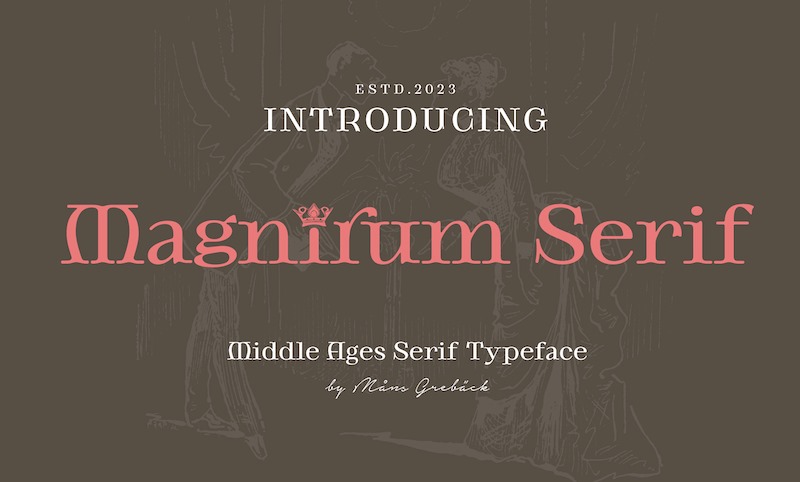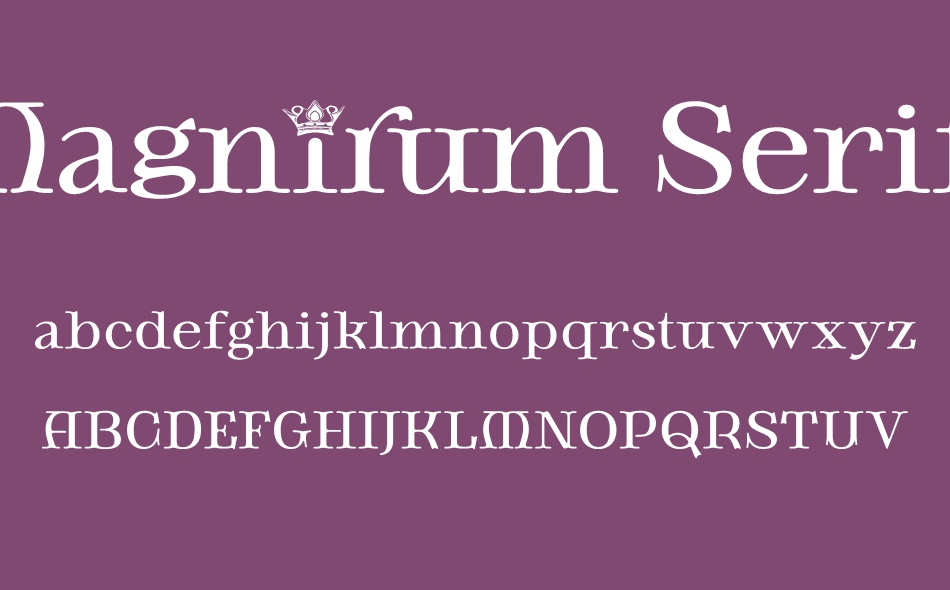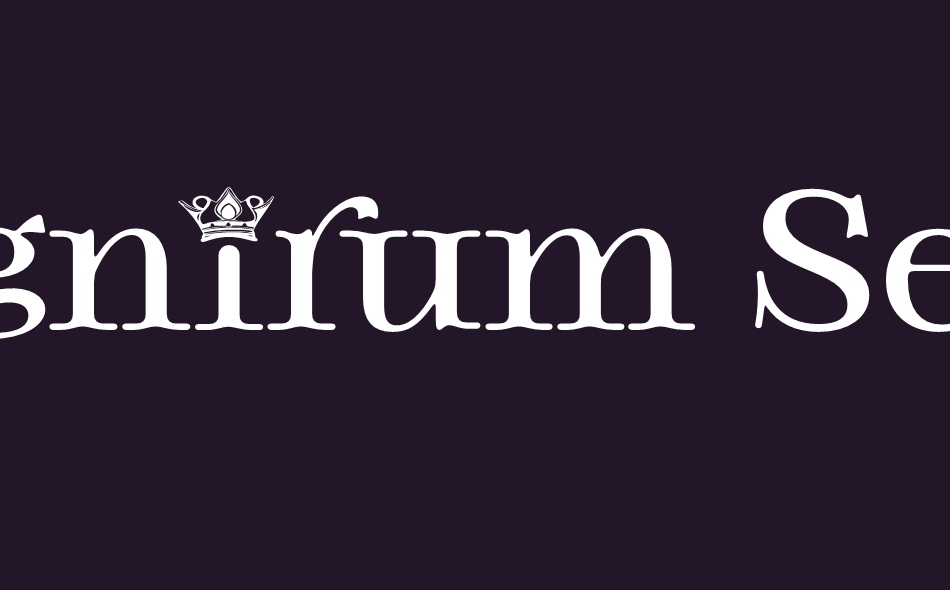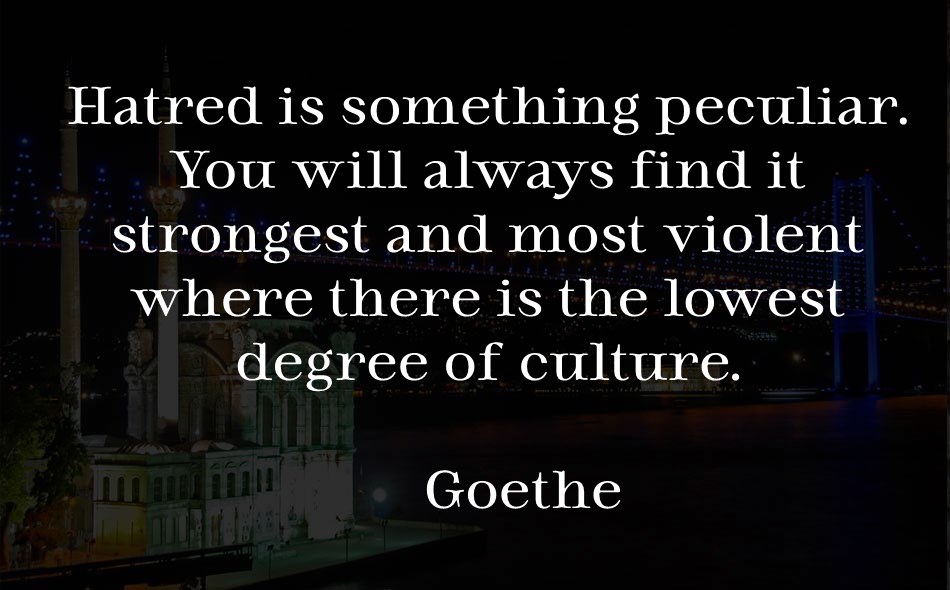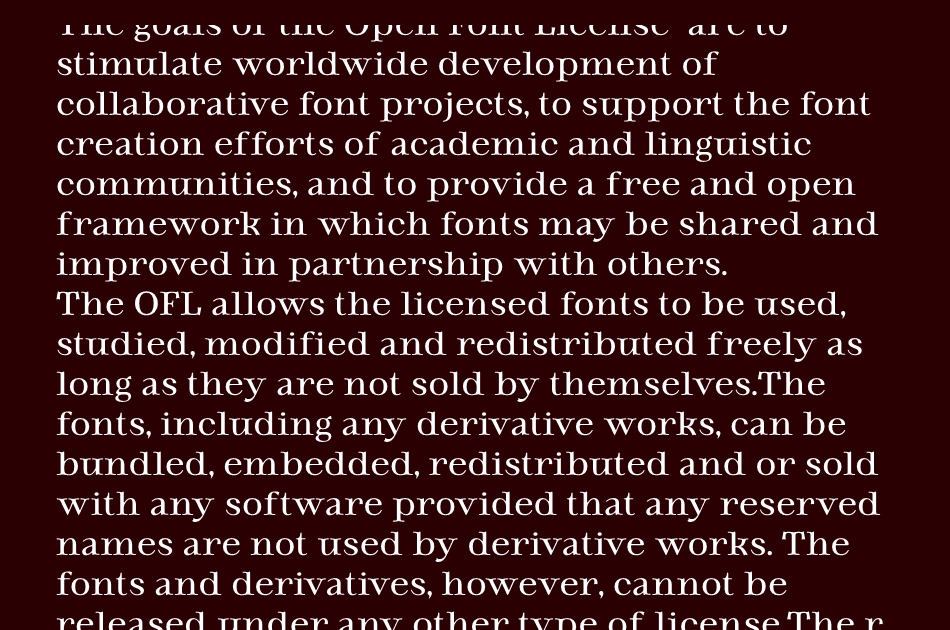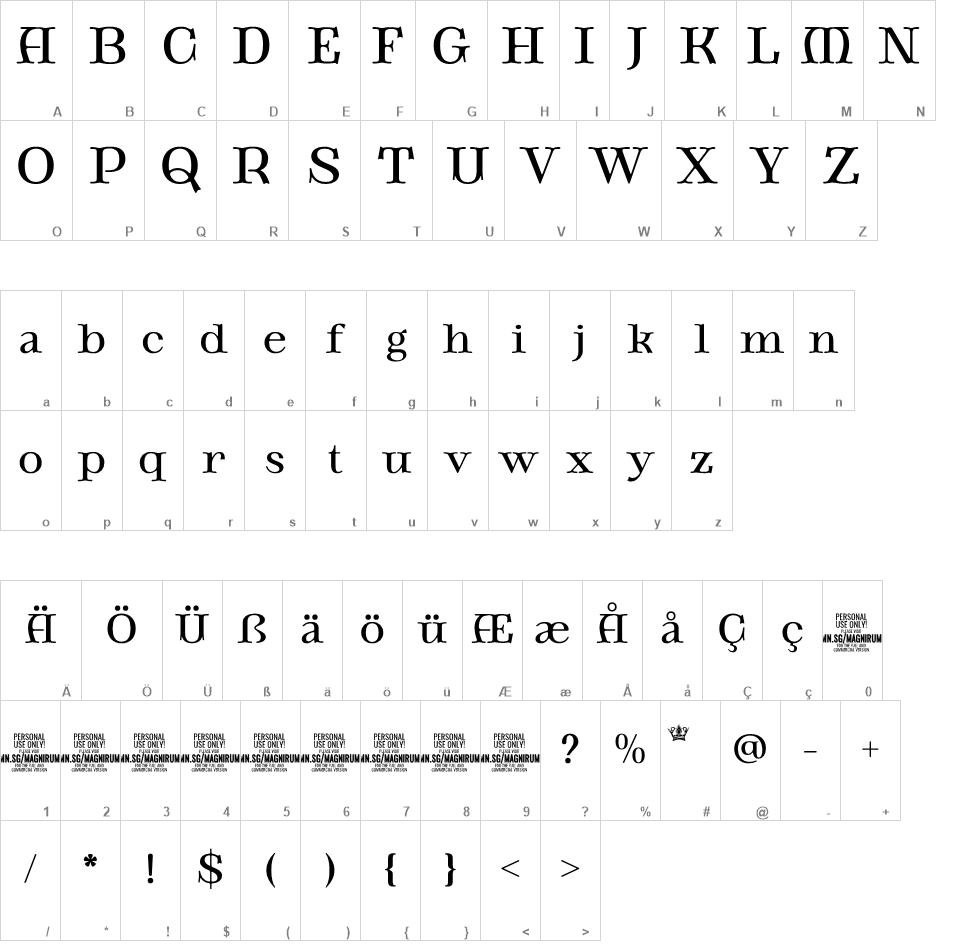
Magnirum Serif font
Magnirum Serif is a serif typeface with a medieval flair. Drawing inspiration from historic typography and medieval design, Magnirum Serif is a timeless creation that exudes beauty and elegance.
Add symbol # after any letter to place a crown on top of it.
Example: Cro#wn
Magnirum Serif is a serif typeface with a medieval flair.
Drawing inspiration from historic Roman typography and medieval design, Magnirum Serif is a timeless creation that exudes beauty and elegance. While its serifs and ornaments echo the intricacies of ancient manuscripts, the typeface is designed for modern legibility and regular usage. It combines the best of both worlds, offering a unique blend of historic charm and contemporary readability.
Add symbol # after any letter to place a crown on top of it.
Example: Cro#wn
Magnirum Serif is built with advanced OpenType functionality and has a guaranteed top-notch quality, containing stylistic and contextual alternates, ligatures, and more features; all to give you full control and customizability. It has extensive lingual support, covering all Latin-based languages, and includes all the characters and symbols you'll ever need.
Behind this captivating creation is Mans Greback. Renowned for his skill in marrying historical elements with modern utility, Greback has crafted Magnirum Serif to be a versatile yet nostalgic typeface. His portfolio showcases his ability to bring stories and emotions into the realm of type design.